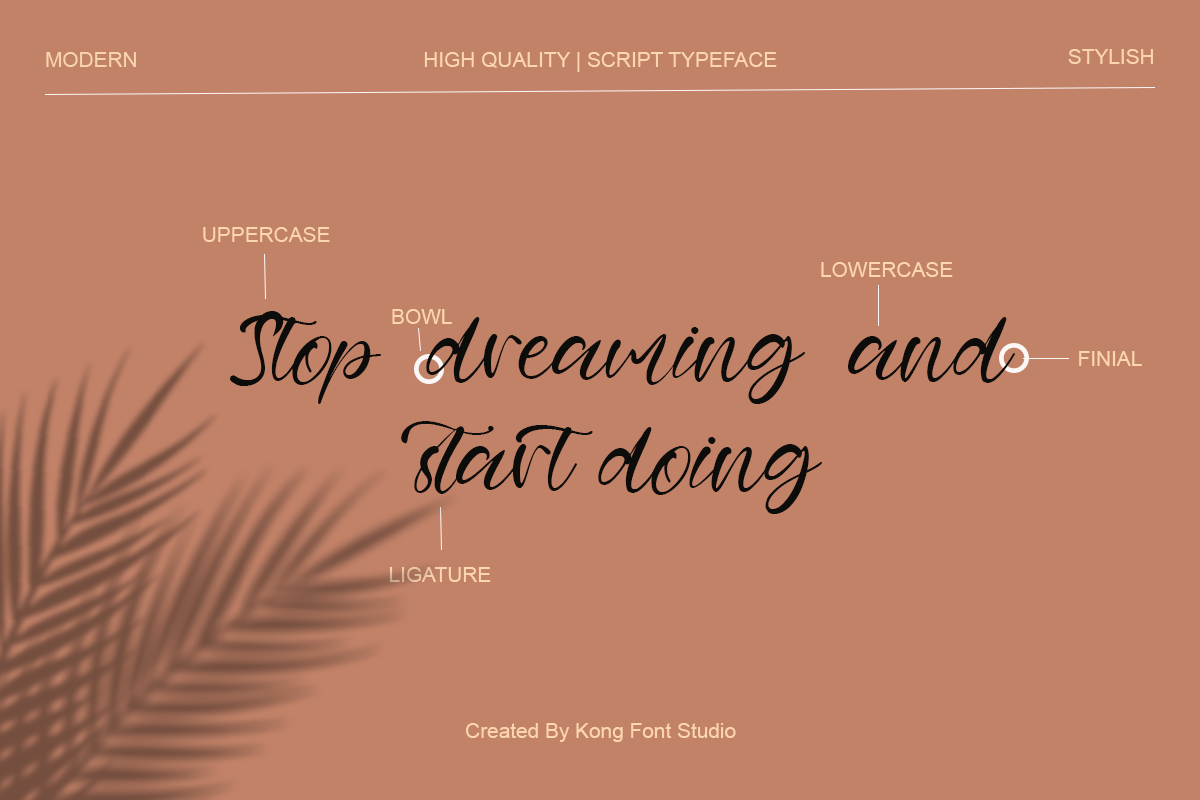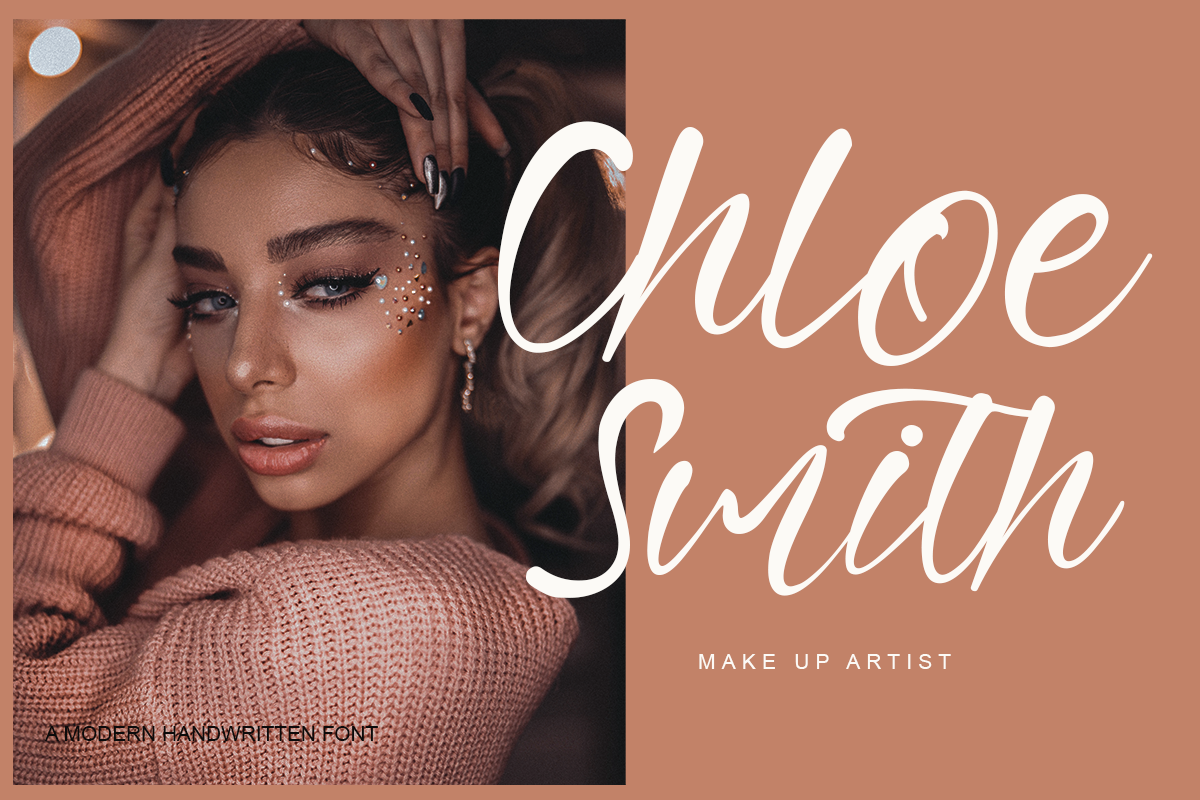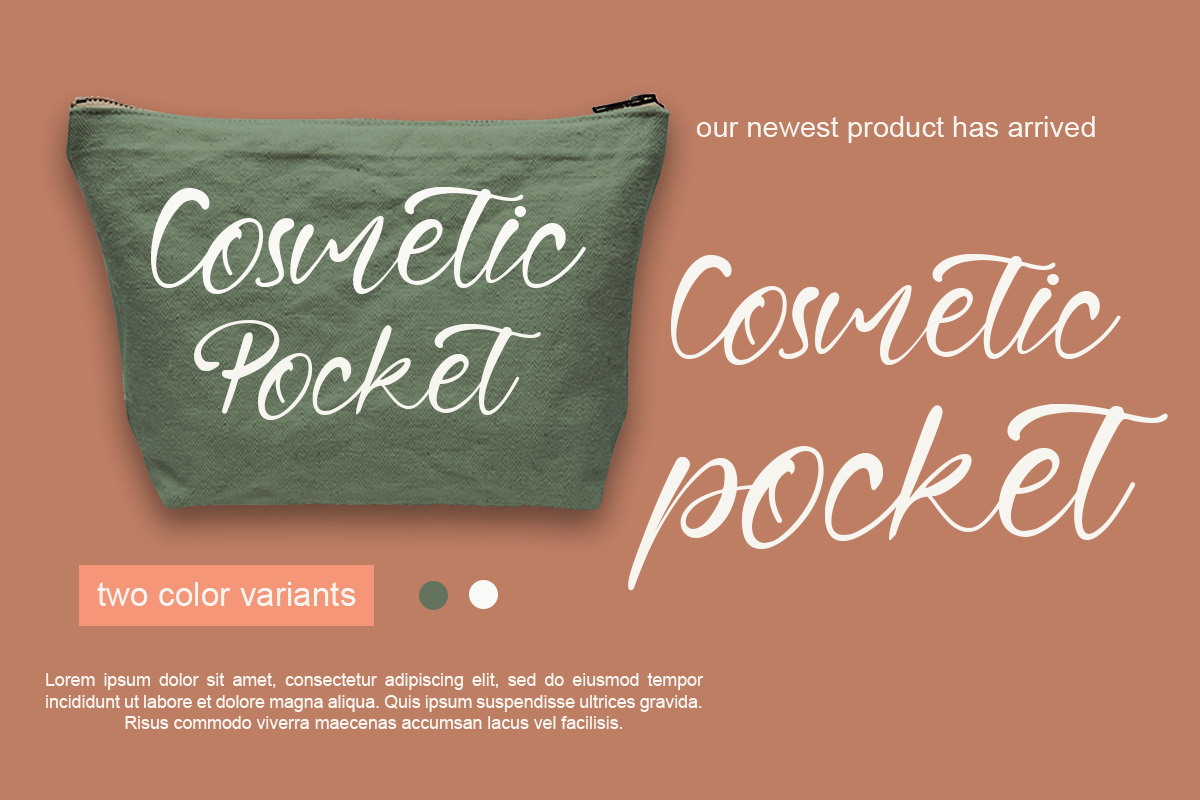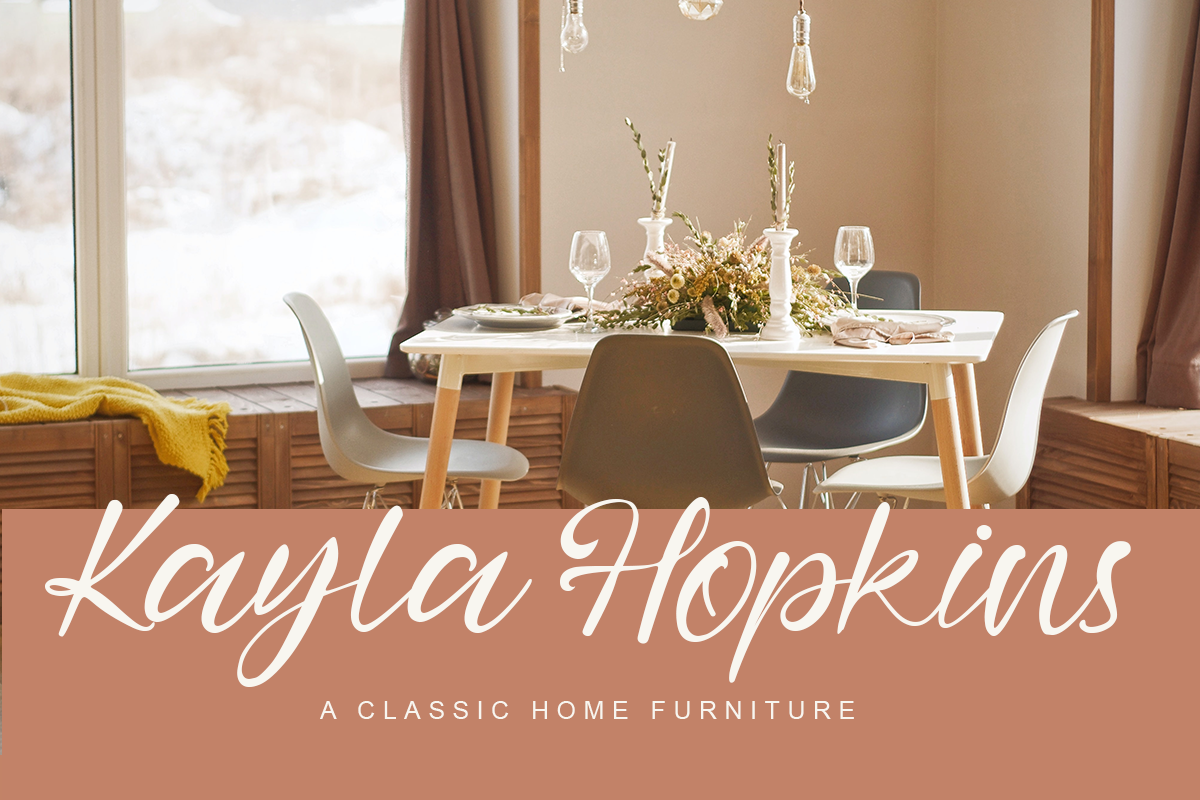
Glory Heart Free Font
Glory Heart Free Font exudes charm with its delightful script font, showcasing playful characters that gracefully dance along the baseline. Infuse this font into your most imaginative concepts and witness how it elevates and accentuates them. This free typeface was designed by a talentedΒ Kong Font. If you like it don’t forget to check out the full version.